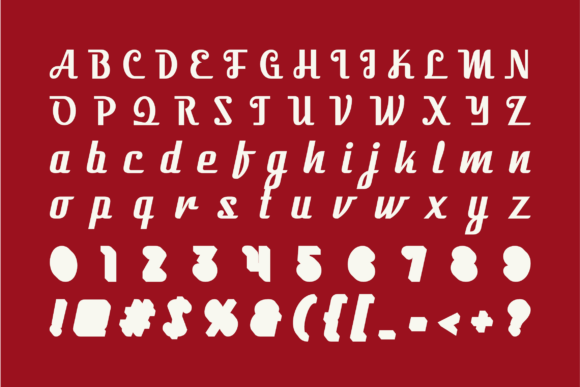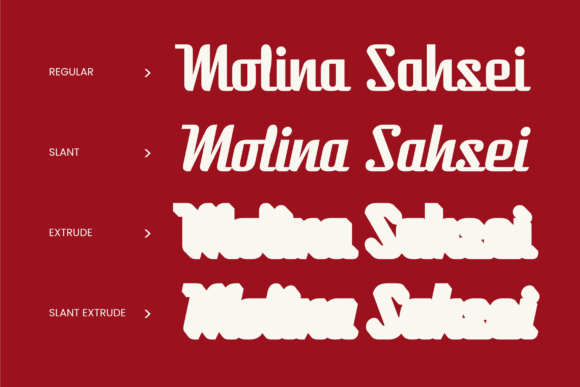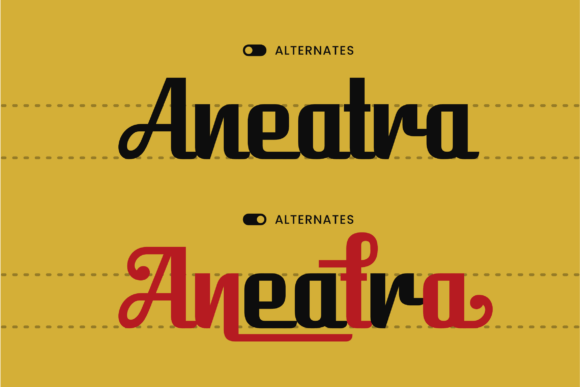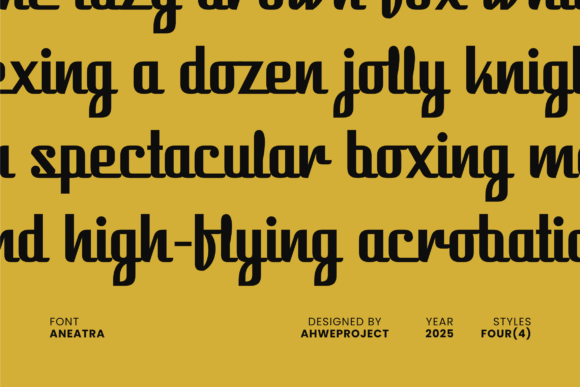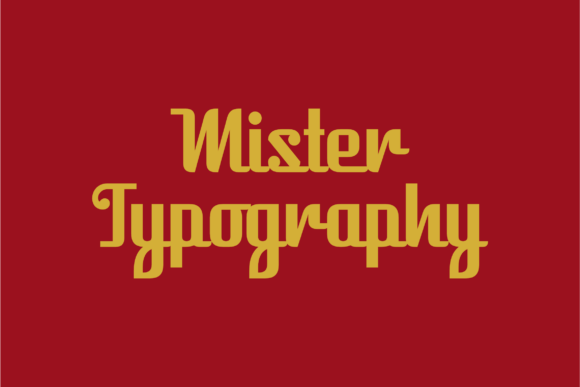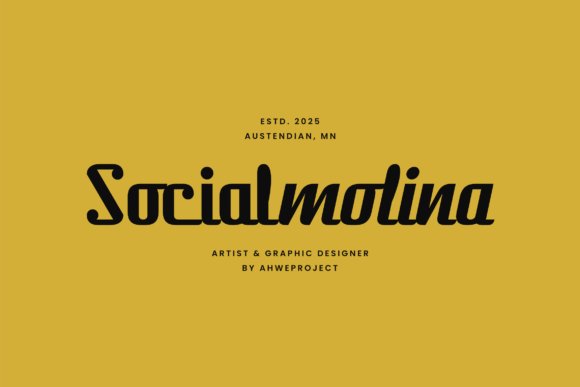
The Aneatra Font: Elevating Your Designs with Modern Elegance
I’ll never forget the struggle of working on a logo design project for a trendy boutique client. The brief was clear: create a brand identity that exudes modern sophistication and elegance. As I scrolled through font libraries, I found myself stuck in a sea of similar sans-serifs and tired scripts. That’s when I stumbled upon Aneatra, a game-changing modern script display font that instantly caught my eye. In this article, I’ll share my experience with Aneatra, its features, and how to make the most of this versatile font in your designs.
First Impressions: What I Love About Aneatra
Aneatra has quickly become a go-to font in my design arsenal, and here’s why:
- ✨ Smooth curves and sharp edges: Aneatra’s unique blend of fluid curves and crisp edges creates a captivating visual contrast that makes every word stand out.
- ✅ Four versatile styles: From bold and dramatic to elegant and refined, Aneatra offers a range of styles to suit various design needs and preferences.
- 🔥 Perfect for headlines and display text: Aneatra shines when used for eye-catching headlines, social media graphics, and attention-grabbing posters.
- 💼 Great for branding and packaging: The font’s modern elegance and sophistication make it an excellent choice for creating a strong brand identity.
While Aneatra has won me over, there are a few minor quirks to keep in mind:
- 🤔 Limited use for body text: Due to its script nature and bold style, Aneatra might not be the best choice for lengthy body text. Stick to headlines and display text for maximum impact.
- ⚠️ Glyph support: While Aneatra offers a range of glyphs and OpenType features, some characters might not be immediately available. Take some time to explore the font’s capabilities.
The Story Behind Aneatra
Aneatra was designed with the goal of creating a modern script font that balances bold style with timeless elegance. Inspired by the fluid curves of handwritten scripts and the precision of digital typography, Aneatra’s creator aimed to craft a font that would elevate designs and make every word stand out.
| Font Name | Aneatra Font |
| Author | ahweproject |
| What is Aneatra best used for? | Aneatra is perfect for creating eye-catching headlines, stylish social media graphics, and sophisticated design projects, such as logos, branding, posters, and packaging. |
| Can I use Aneatra for body text? | While Aneatra can be used for short paragraphs, it’s best suited for headlines and display text due to its script nature and bold style. |
| Does Aneatra support OpenType features? | Yes, Aneatra offers a range of OpenType features, including glyphs, stylistic alternates, and more. Experiment with these features to unlock the font’s full potential. |